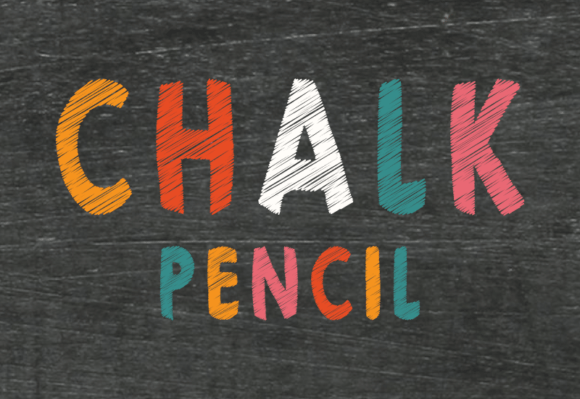
Introducing Chalk Pencil Font, a captivating and playful addition to your design arsenal! Created by GraphicsNinja, this delightful font is designed specifically to infuse your projects with happiness and a sense of fun, making it an ideal choice for kid-oriented and back-to-school endeavors.
Are you searching for the perfect font that will instantly transport your audience to a world of joy and imagination? Look no further! Chalk Pencil Font is here to breathe life into your designs and captivate both young and young-at-heart.
With its unique display style, this font boasts an enchanting handwritten quality that will effortlessly elevate your creations. Whether you're working on children's books, educational materials, or even crafting eye-catching book covers, Chalk Pencil Font is the ultimate companion for unleashing your creativity.
Imagine the excitement on a child's face as they dive into a book adorned with this whimsical font. Each stroke of the Chalk Pencil Font exudes a sense of playfulness and curiosity, inviting young readers to embark on exciting adventures within the pages.
But Chalk Pencil Font isn't just for kids! It's also a versatile tool for any back-to-school project ideas you may have. Infuse your posters, flyers, and presentations with a touch of nostalgic charm, effortlessly capturing the essence of youthful enthusiasm and the quest for knowledge.
Crafted with love and meticulous attention to detail, Chalk Pencil Font is the result of endless hours of creativity and expertise. Its seamless integration with various design software ensures a smooth and hassle-free experience, allowing you to focus on what matters most – bringing your vision to life.
Remember, a picture may be worth a thousand words, but with Chalk Pencil Font, your typography will speak volumes. Get ready to captivate your audience, evoke emotions, and leave a lasting impression with this must-have font in your collection!